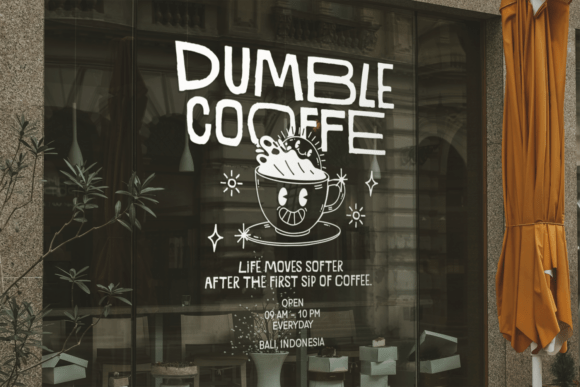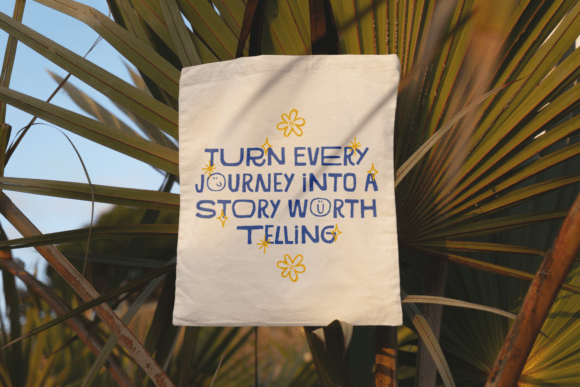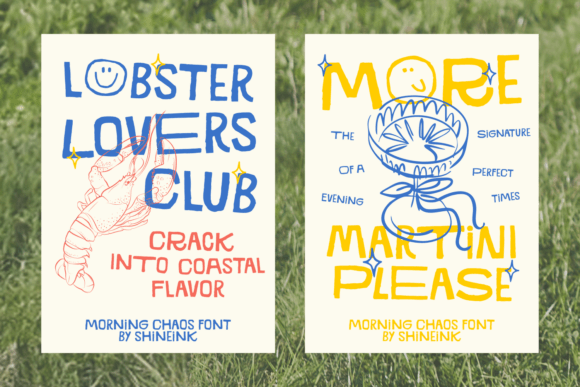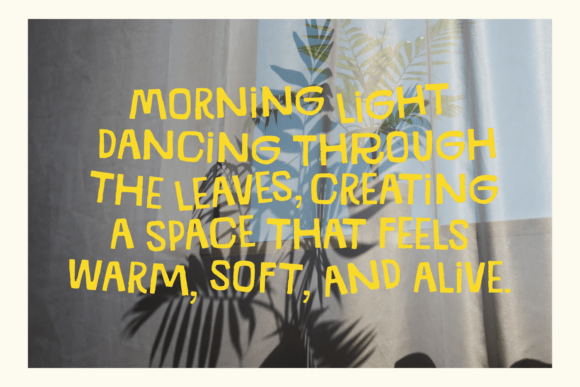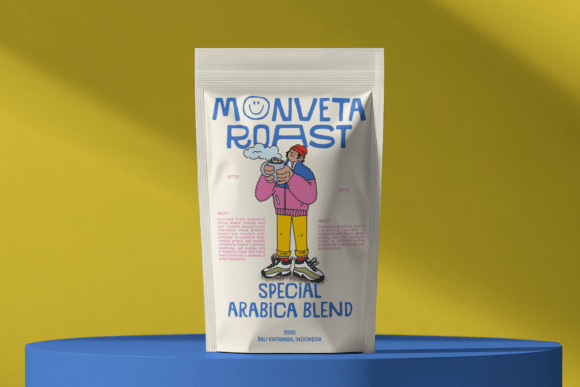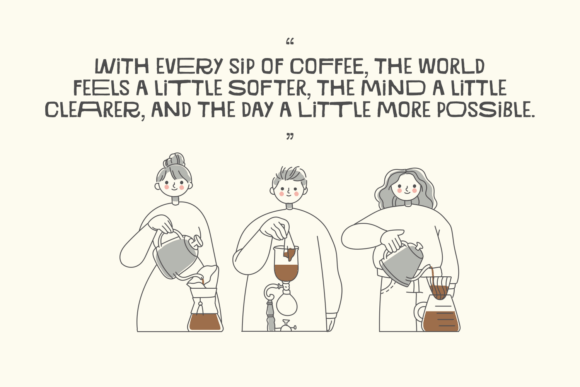
Introduction to Morning Chaos Font Font
Fonts play a crucial role in design, and the Morning Chaos Font font is a typeface that brings both character and versatility to any project. Whether you’re working on a branding project, a website, or a print design, the Morning Chaos Font font offers a unique style that can elevate your work.
Morning Chaos is a bold, quirky, and expressive all-caps display typeface designed to bring a fresh burst of energy into your creative work.
Inspired by carefree mornings, spontaneous doodles, and playful imperfections, this font captures a lively and joyful personality that instantly stands out Every letter in Morning Chaos is uniquely crafted with irregular shapes and hand-drawn character, creating a natural, organic feel that breaks away from rigid and overly polished typography.
Key Features of Morning Chaos Font Font
Why Choose Morning Chaos Font Font?
The Morning Chaos Font font is more than just a typeface – it’s a design tool that helps you communicate your message with style and clarity. Its unique character set and versatile design make it suitable for a wide range of applications, from elegant invitations to bold headlines.
With its carefully crafted letterforms and balanced proportions, the Morning Chaos Font font ensures readability and visual appeal across all mediums.
What makes Morning Chaos Font font special?
The Morning Chaos Font font stands out with its unique design, exceptional readability, and versatility across various design applications.